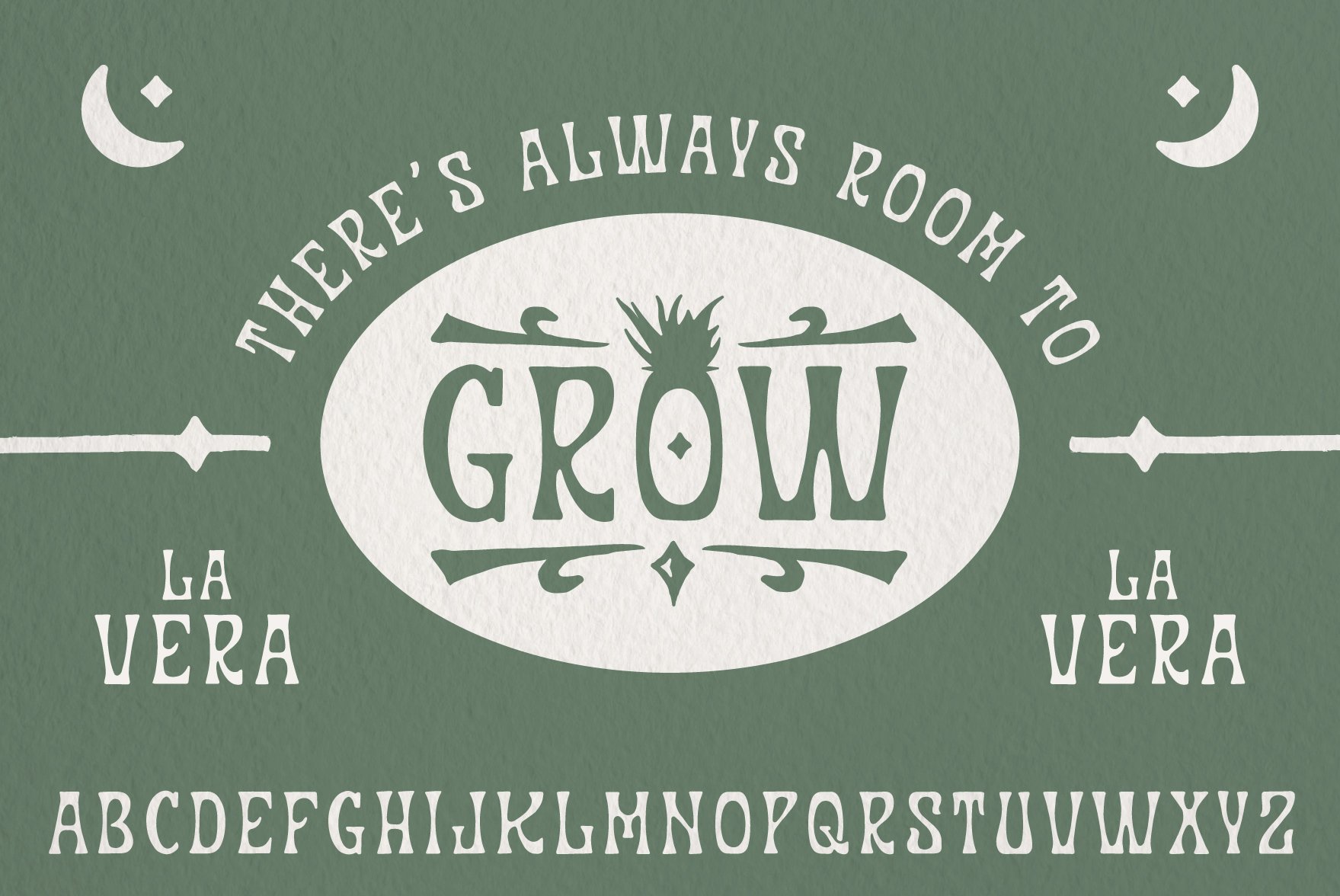
La Vera
La Vera is a hand-drawn, all-caps display font. It's groovy, quirky, and strives to be the fun one in the room. Inspired by the natural forms of the aloe vera plant, there's an abundance of weight contrast within the letterforms. Includes numbers and basic punctuation. This font includes CAPITAL letterforms only.